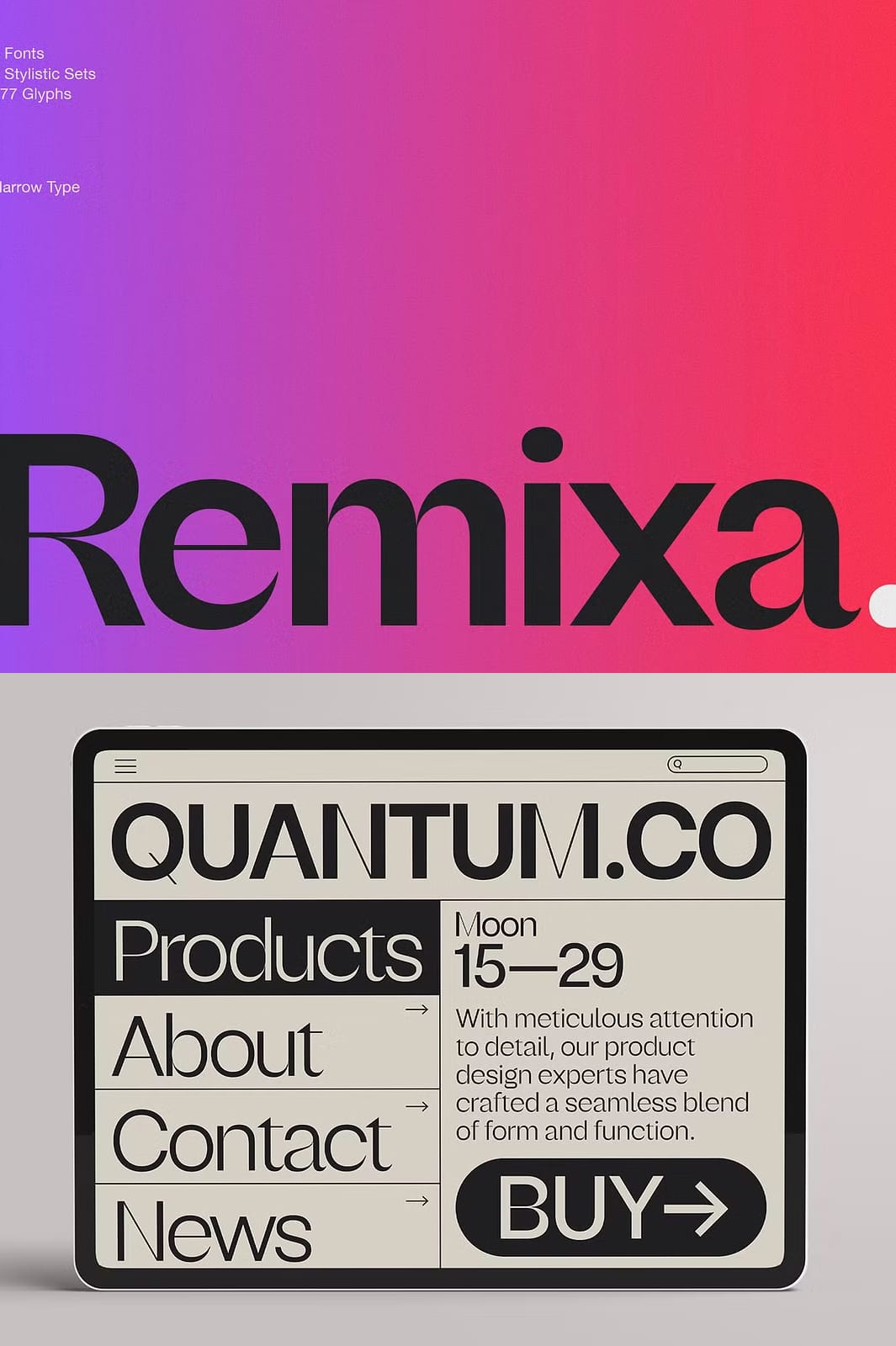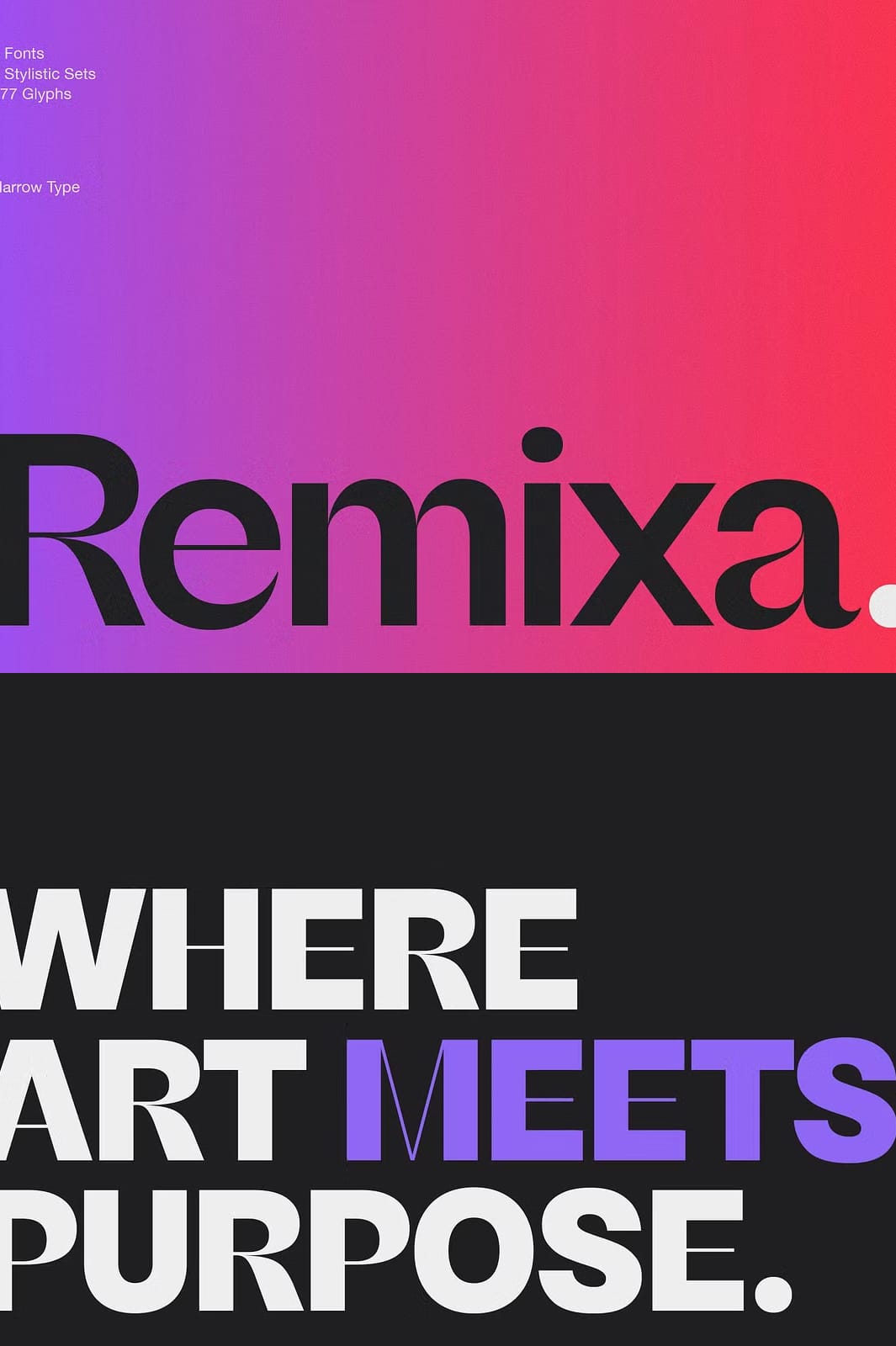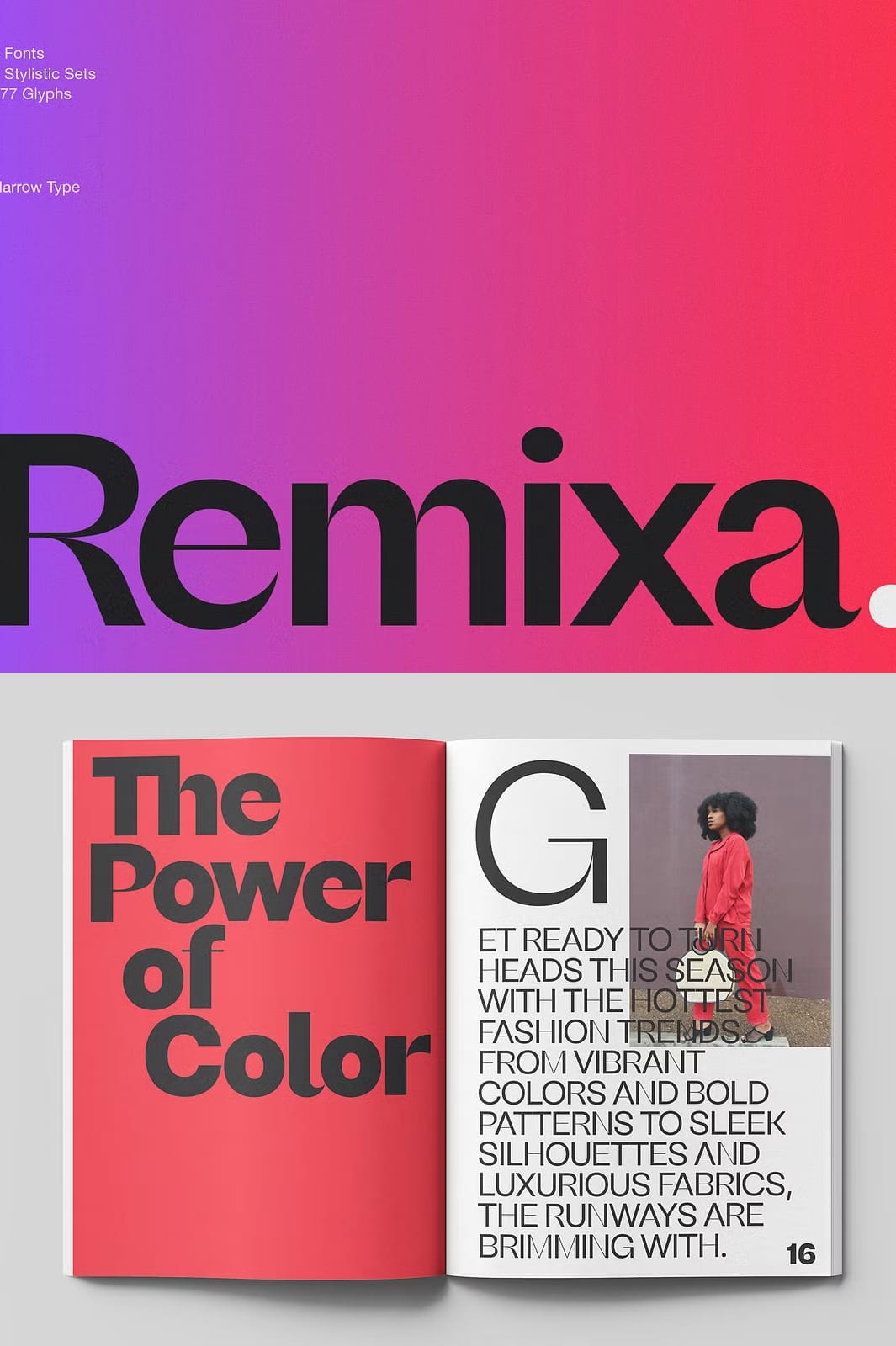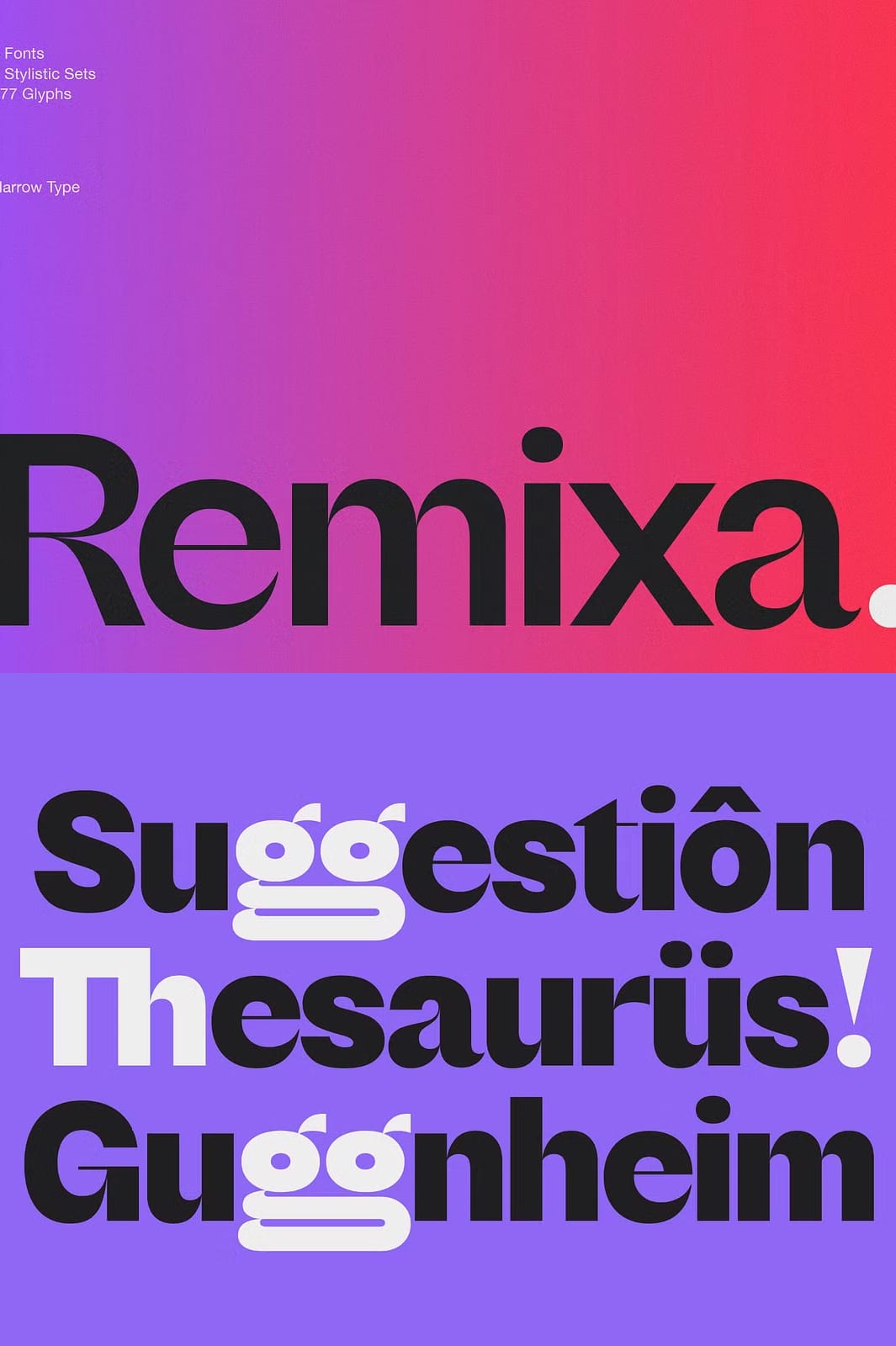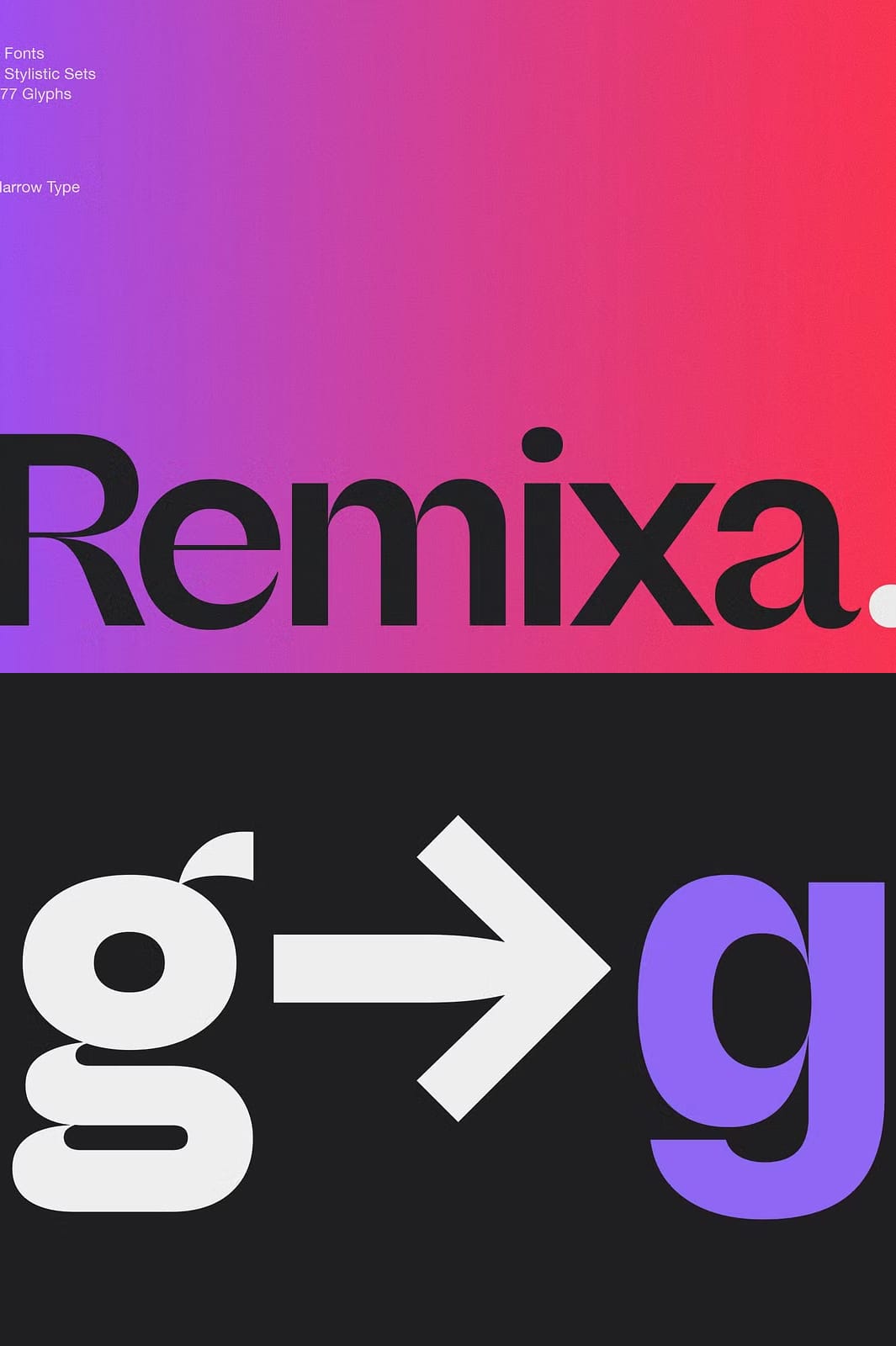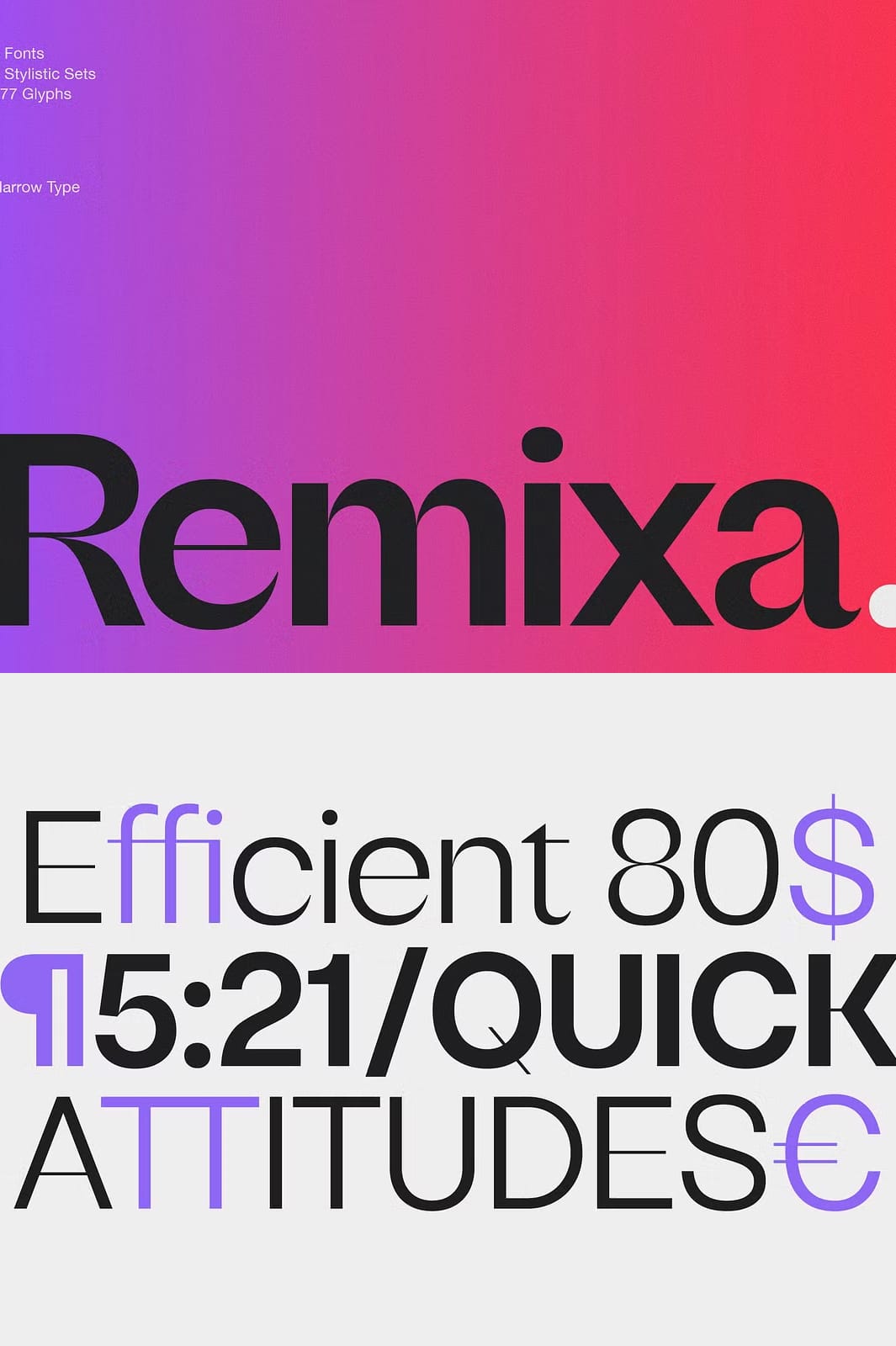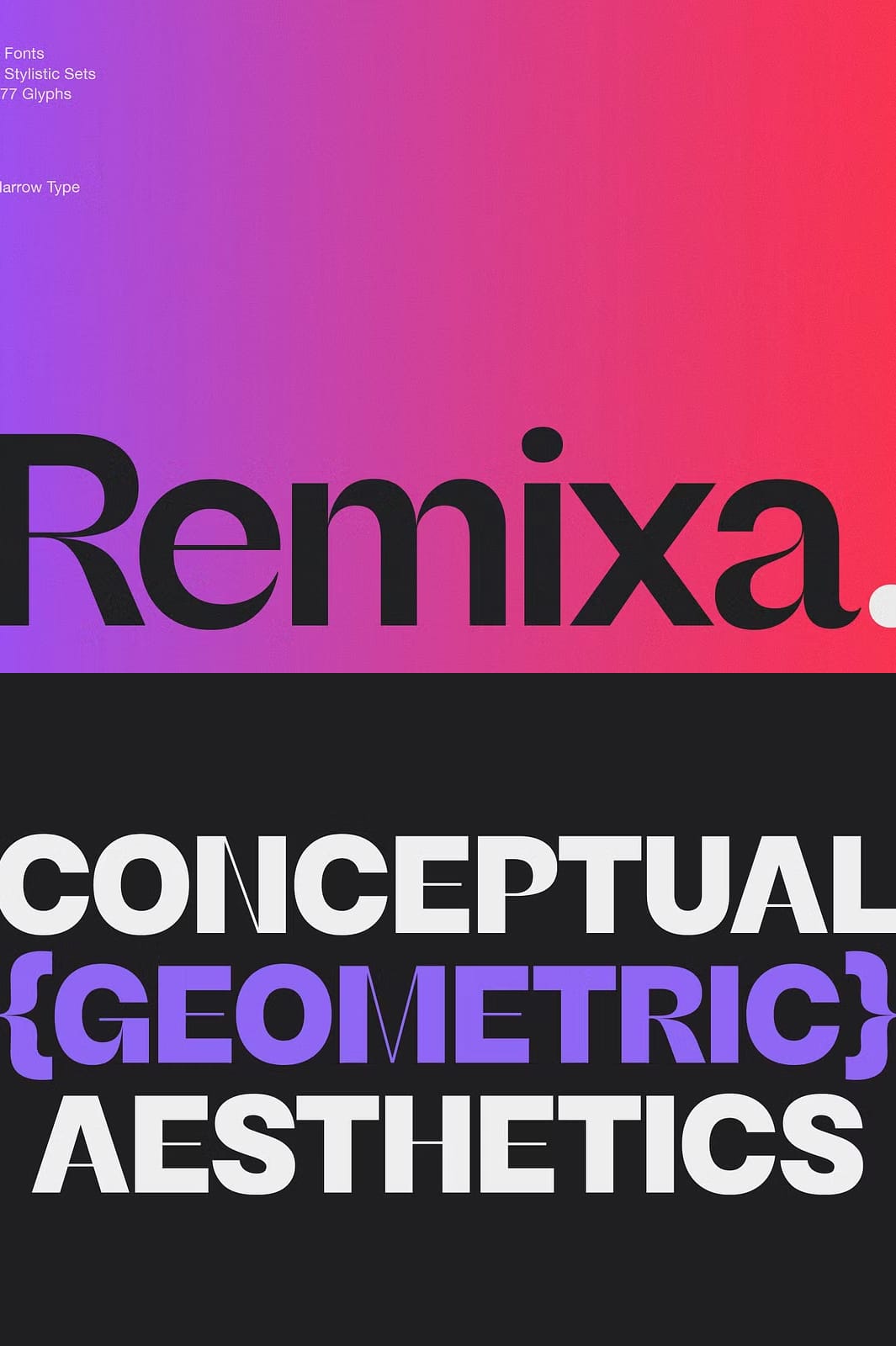
Remixa is a cutting-edge modern sans-serif typeface designed to break the mold by integrating subtle serif elements. This unique fusion creates a captivating design that stands out in today’s competitive visual landscape. The typeface is meticulously crafted with six versatile weights, from light to bold, ensuring flexibility and adaptability for various design needs.
The designers behind Remixa have expertly balanced each weight to maximize legibility and visual impact. Whether you are designing for digital interfaces or printed media, Remixa empowers you to create expressive and polished compositions that communicate your message clearly and effectively.
Advanced Typographic Features Enhance Design Possibilities
- Six distinct weights provide optimal versatility for any project.
- Standard and discretionary ligatures offer smooth character connections for elegant text flow.
- Stylistic alternates allow designers to customize letterforms for unique typographic expression.
- Oldstyle figures blend harmoniously with text for refined numerical display.
- Tabular lining ensures consistent alignment in tables and charts.
- Case-sensitive forms adapt punctuation and symbols for uppercase text.
- Comprehensive multilingual support expands the typeface’s usability worldwide.
Why Choose Remixa for Your Next Design Project?
Remixa’s innovative approach brings together the sleekness of sans-serif with the timeless character of serif details, resulting in a typeface that feels both modern and classic. Its range of weights and extensive features make it suitable for branding, editorial layouts, advertising, digital content, and more.
With its clean lines and refined details, Remixa improves readability while adding a subtle touch of elegance, making your design work not only functional but also aesthetically compelling.
Seamless Integration into Digital and Print Media
Whether you need a strong headline font or a sophisticated body text, Remixa adapts effortlessly for use across various platforms. Its tailored features, such as ligatures and alternate glyphs, enable enhanced creativity and precision in typography, ensuring your designs stand out professionally.
Elevate your design projects with Remixa—a font that brings timeless elegance and modern versatility into perfect harmony.